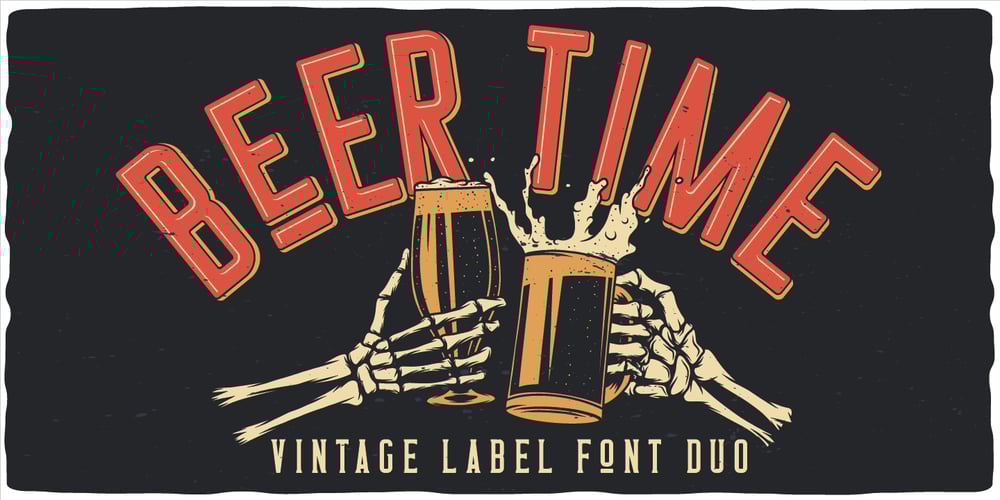
Beer Time Font Family was designed by Oleg Voznyy and published by Vozzy. Beer Time contains 10 styles and family package options. Introducing a vintage look label font named “Beer Time”. This font support multilingual characters and punctuation symbols. All available characters you can see at the screenshot. This font have 2 basic styles (Serif and sans serif) and 4 effect styles for each. This font will good viewed on any retro design like poster, t-shirt, label, logo etc.